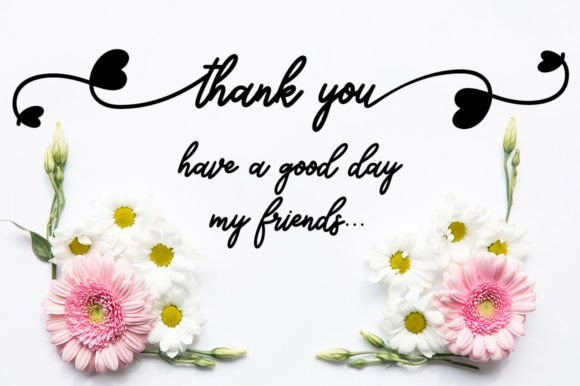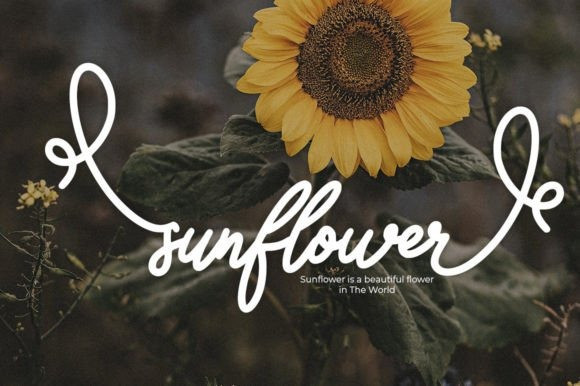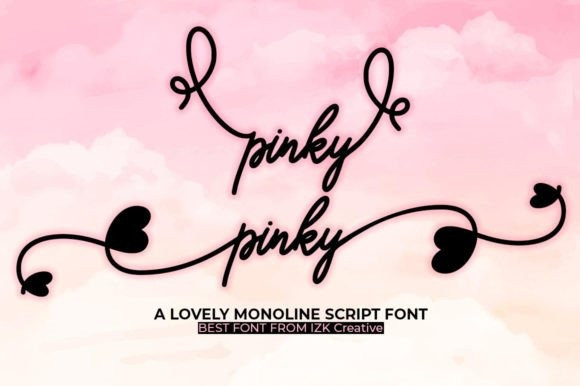
Pinky Script Font
Pinky Script Font is a modern calligraphy design. It is perfect for your craft projects, svg files, social media quotes, shirts, stickers, and more!